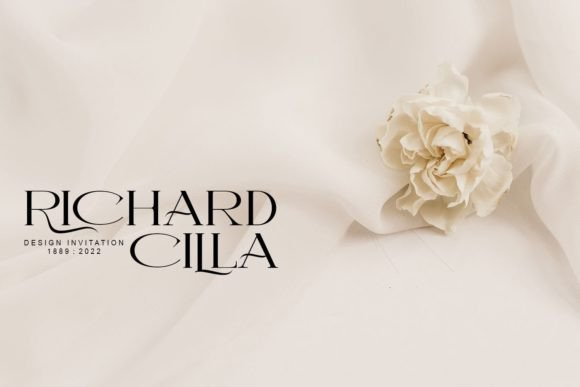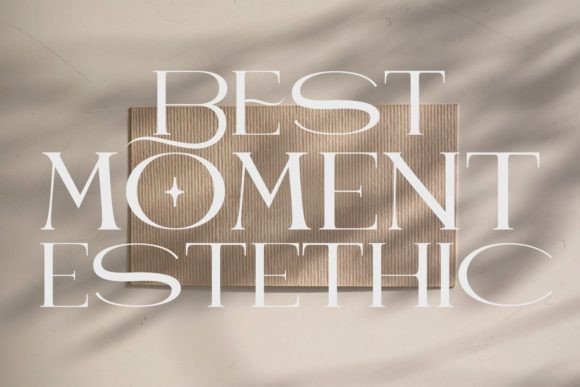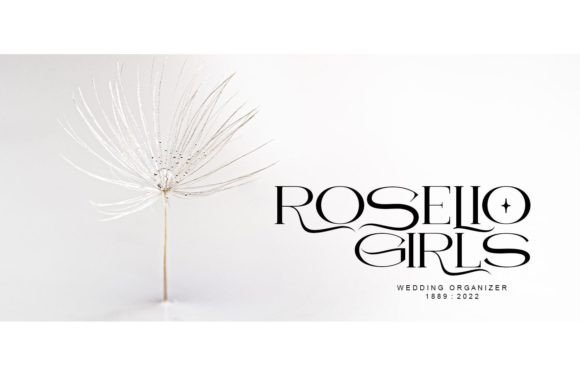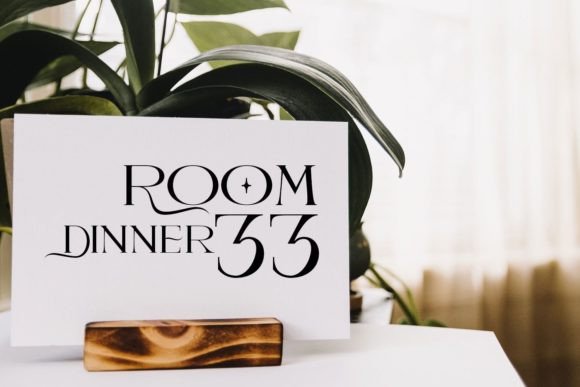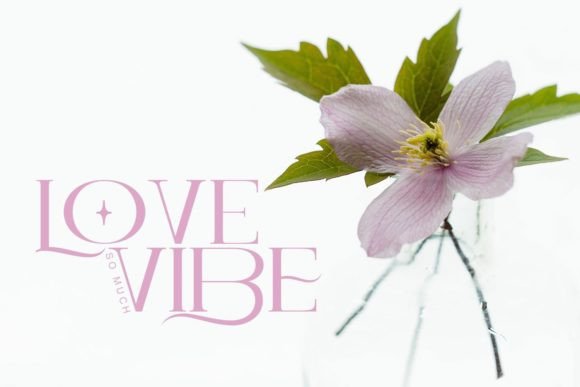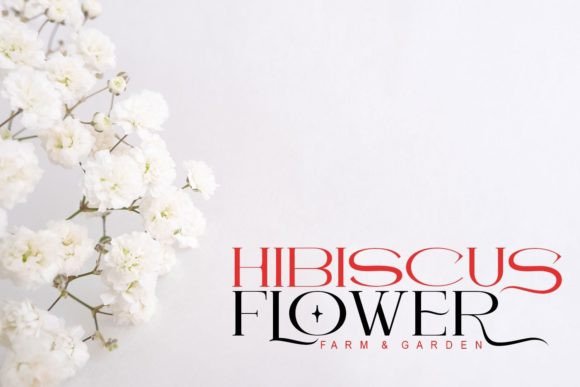
Introduction to Delao Qord Font
Delao Qord is a modern and elegant serif font that looks very simple but has a luxurious impression.
It is suitable for casual or elegant and luxurious designs, books, magazines, invitations, greeting cards, video titles, and more .
Key Features of Delao Qord Font